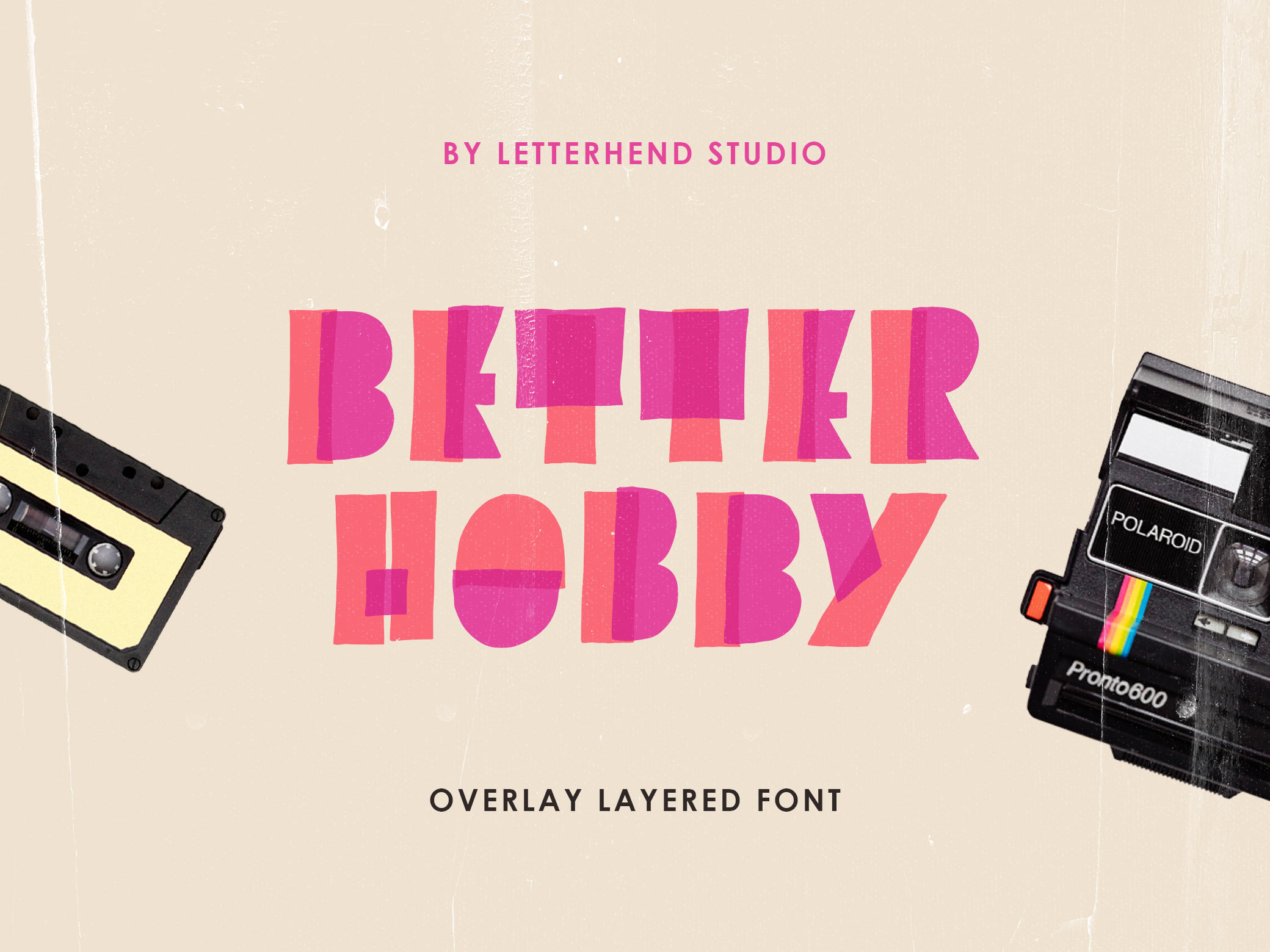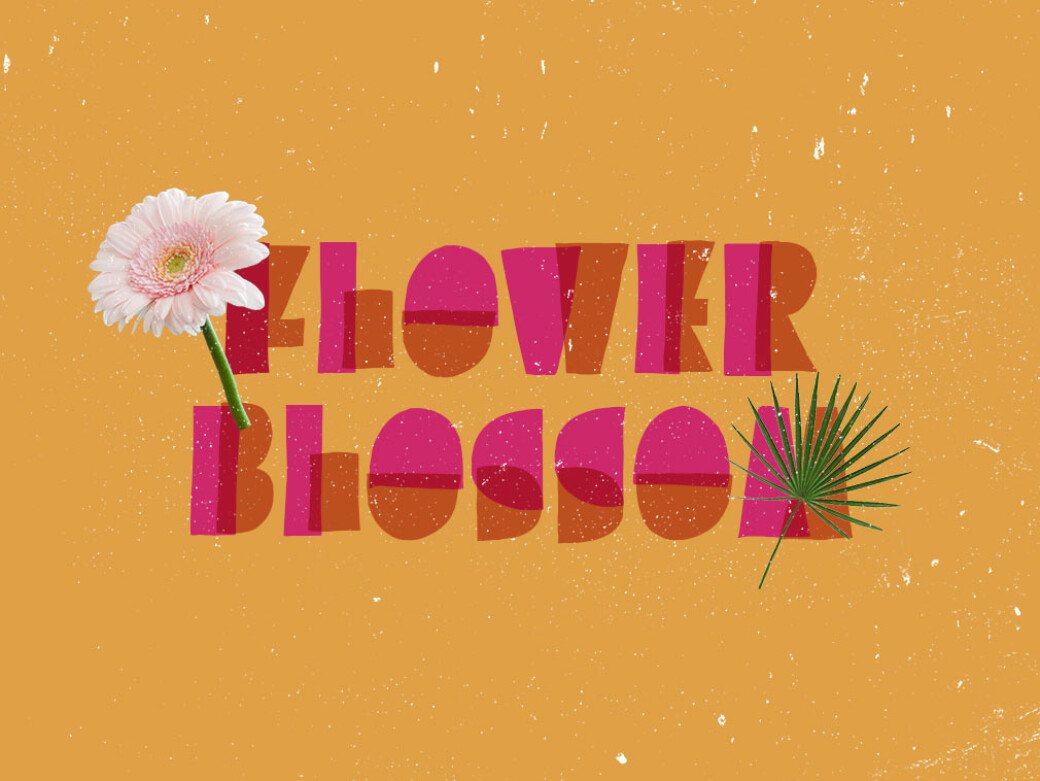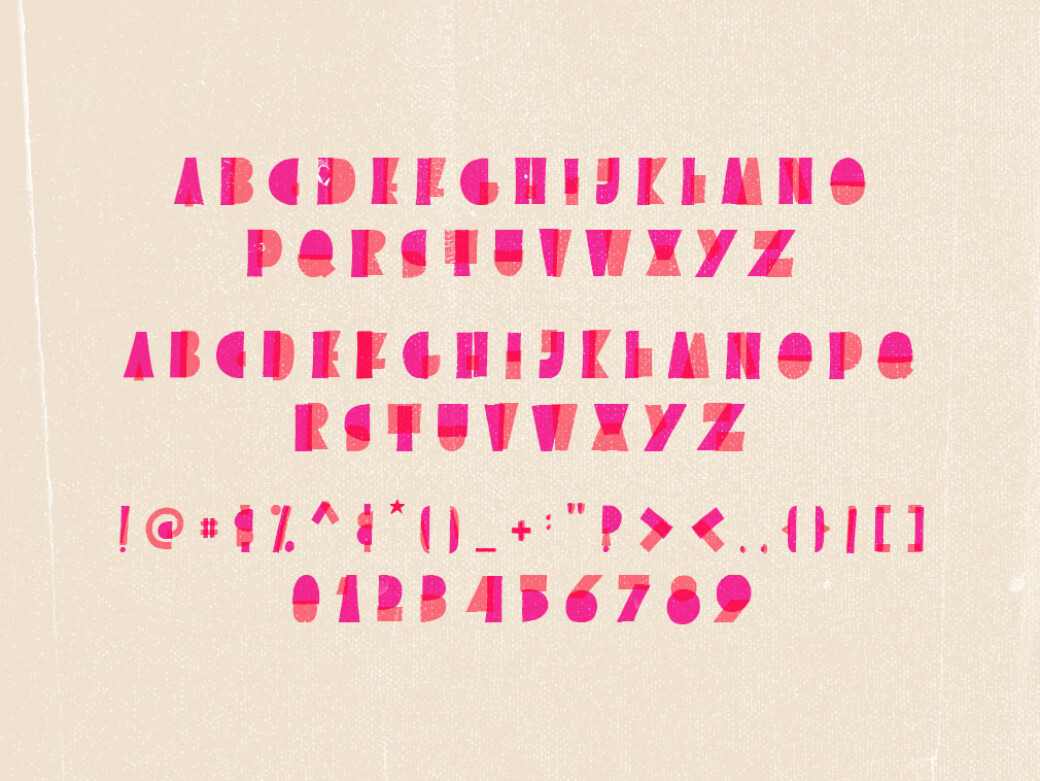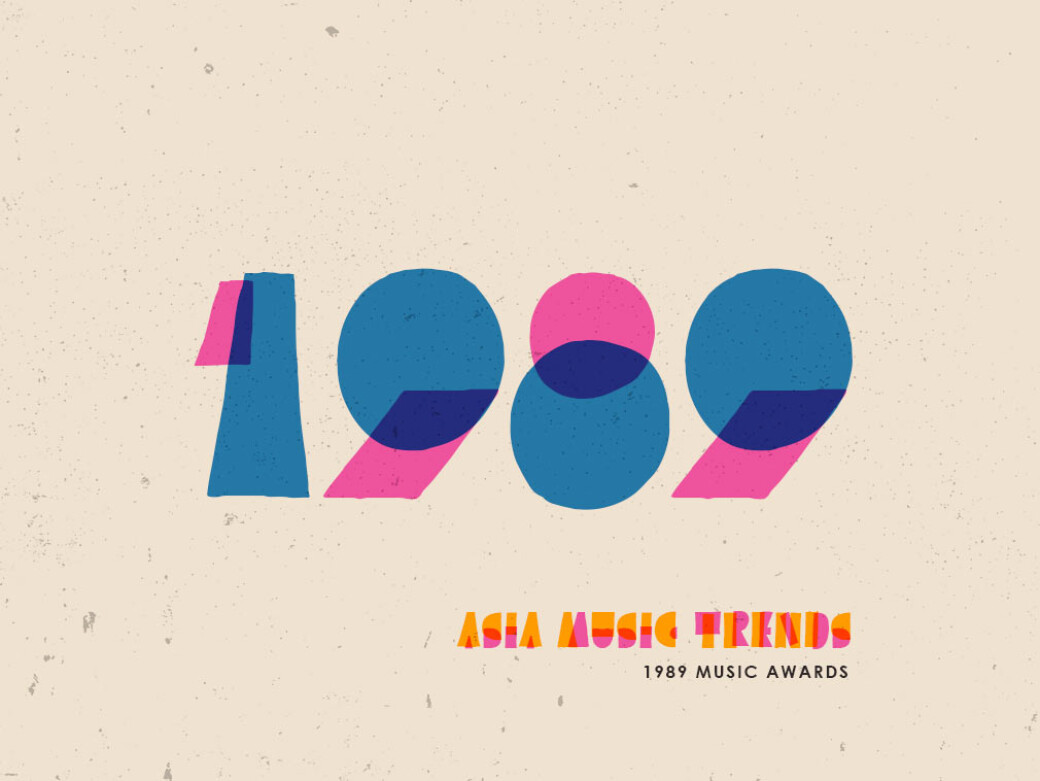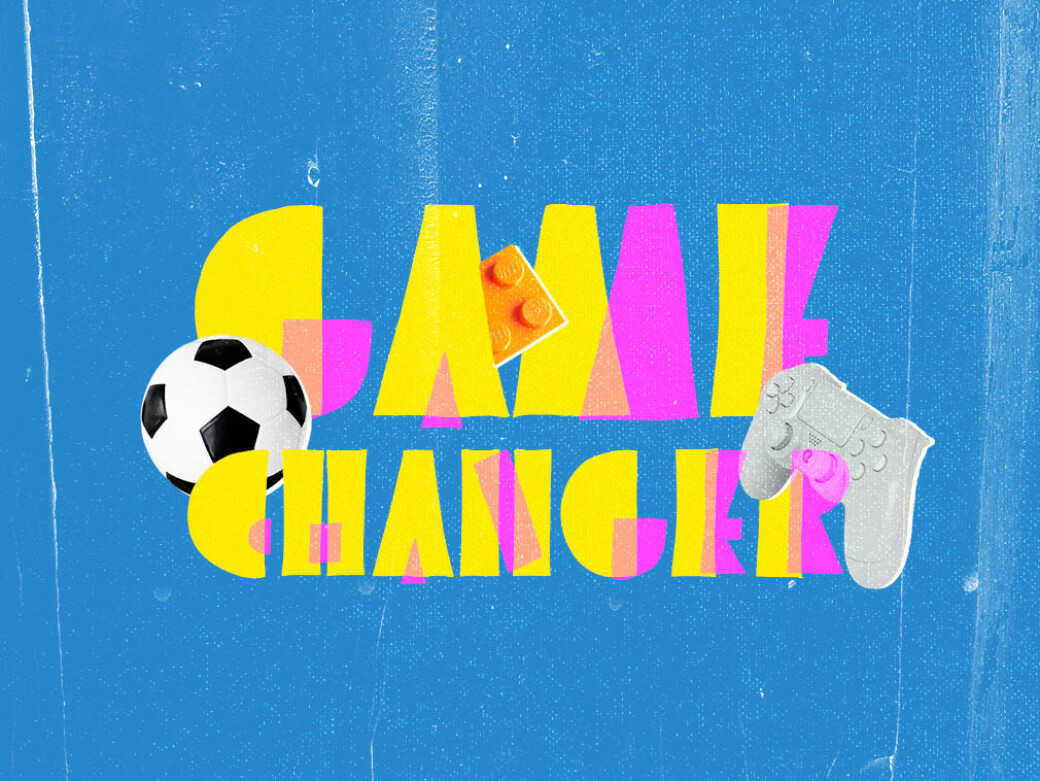
Better Hobby Display Font
Colorful highlighter markers and overlaying strokes — that's the recipe for a joyous free display font you're looking at. It fits the projects that require some vivacity, fun and high spirits!Better Hobby is a fascinating overlay display font. The typeface has a unique shape, very suitable for the casual and playful design theme. This font is also supremely-made to be applied to logos, invitations, labels, brochures, books, greeting/wedding cards, packaging, stationery, tags or any advertising purpose. The package is supplied with characters, numbers, punctuation, multilingual support and the OpenType features.